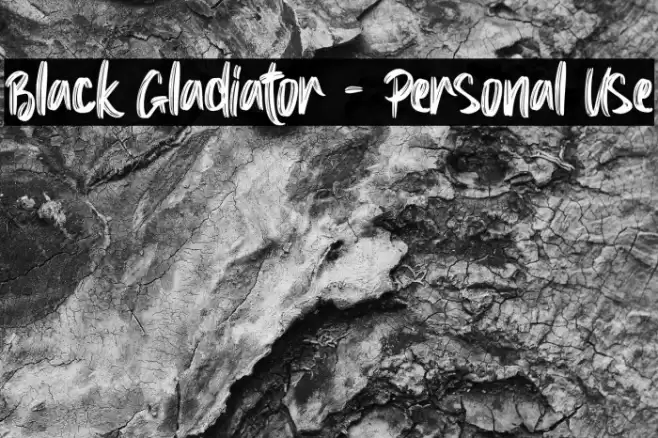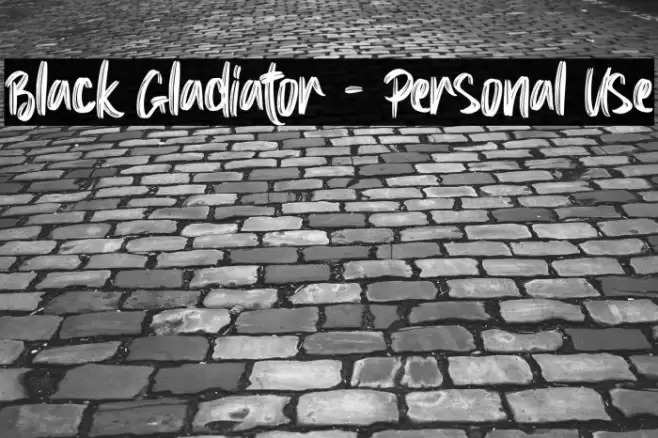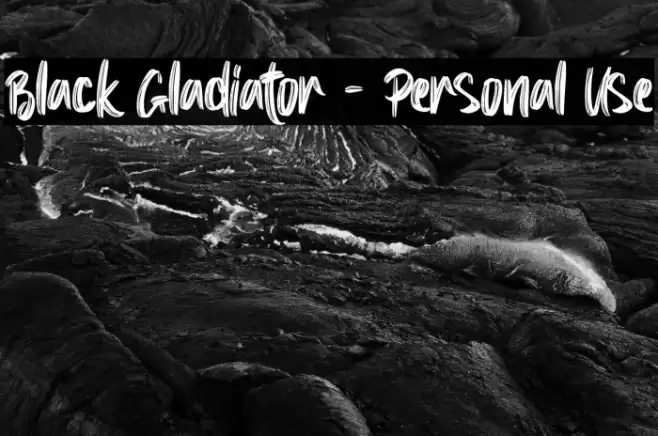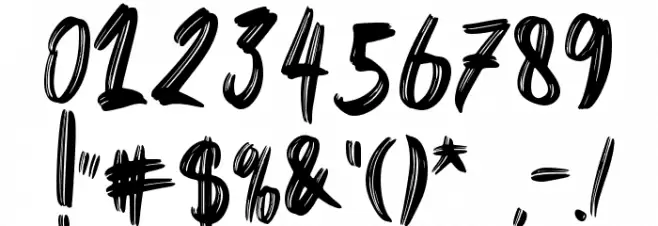
Black Gladiator - Personal Use Font
Black Gladiator - Personal Use Description
This font features a bold, expressive style with a hand-drawn appearance. The strokes are thick and dynamic, giving each character a sense of movement and energy. The uppercase and lowercase letters maintain a consistent style, with exaggerated curves and angles that create a visually striking effect. The numbers and special characters follow the same bold and energetic design, making them stand out. The overall look is modern and artistic, suitable for projects that require a strong visual impact.
A bold, expressive, hand-drawn font with dynamic strokes from Regular fonts.
- Proposed Projects: Ideal for posters, album covers, branding, and any project needing a bold, artistic touch.
- Overall Style: Modern, Artistic